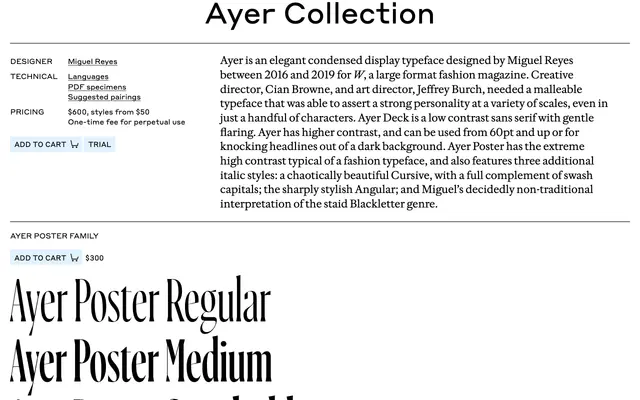
Ayer
Commercial Type · Miguel Reyes · 2019
Miguel Reyes's condensed fashion display drawn for W magazine, running from low contrast Deck to extreme contrast Poster with Cursive, Angular and Blackletter italics.
A condensed display family by Miguel Reyes, designed between 2016 and 2019 for W, the large format fashion magazine, at the request of creative director Cian Browne and art director Jeffrey Burch. Ayer Deck is a low contrast sans with gentle flaring; Ayer sits at higher contrast for use from around 60pt or for knocking heads out of dark backgrounds; Ayer Poster carries the extreme high contrast typical of fashion typefaces, with three further italic options: a chaotically beautiful Cursive with full swash capitals, the sharply stylish Angular, and Miguel's decidedly non-traditional take on Blackletter.
A condensed display family by Miguel Reyes, designed 2016 to 2019 for the large format fashion magazine W. Spans low contrast Deck to extreme high contrast Poster, with additional Poster italics including Cursive with swash capitals, Angular and a non-traditional Blackletter.